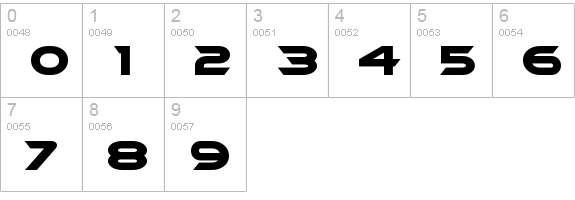
Ethnocentric font is a truly unique and eye-catching typeface that combines modern aesthetics with a touch of cultural influence. Its bold and geometric shapes give it a strong presence, making it perfect for logos, headlines, and other design projects that require a strong visual impact. The interplay of sharp angles and smooth curves creates a dynamic and engaging look that stands out from the crowd. What sets Ethnocentric font apart is its versatility – it can be used for a wide range of design applications, from branding and packaging to posters and social media graphics. Whether you're looking to make a statement or add a touch of cultural flair to your designs, this font has got you covered. And the best part? Ethnocentric font is completely free to download at FontsMarket.com. So why wait? Add this stunning typeface to your collection today and take your designs to the next level!